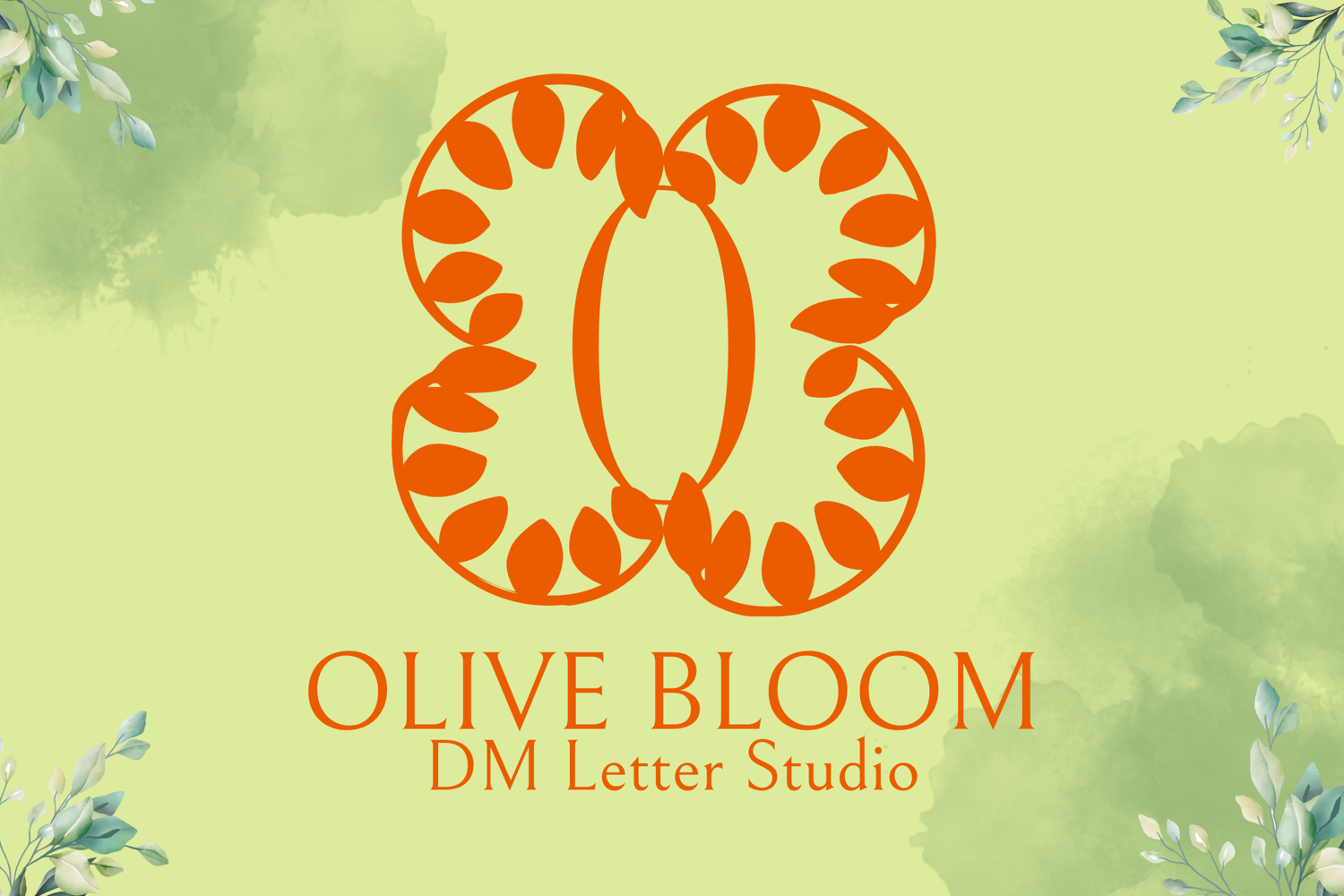
Olive Bloom Monogram - Botanical Serif Monogram Font
Olive Bloom Monogram
Olive Bloom Monogram – Botanical Serif Monogram Font with Olive Branch Accents
Olive Bloom Monogram is a refined serif monogram font inspired by the natural beauty and symbolism of olive branches. Each uppercase letter is thoughtfully adorned with elegant botanical illustrations, creating a harmonious blend of tradition, nature, and artistry. Ideal for weddings, premium branding, and customized gifts, this font adds timeless charm to any monogram-focused design.
• Olive Branch Illustrations: Delicate, hand-drawn olive motifs enhance each capital letter.
• Timeless Serif Base: Classic and readable serif letterforms with elegant proportions.
• Perfect for Customization: Crafted for initials, logos, name signs, and monogram art.